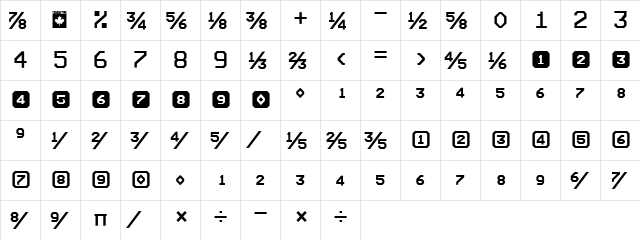
Expo Numerals Regular
Design Context for Expo Numerals Typeface
Expo Numerals takes a measured approach to typography — its balanced proportions and neutral character make it a reliable workhorse for both digital and print work.